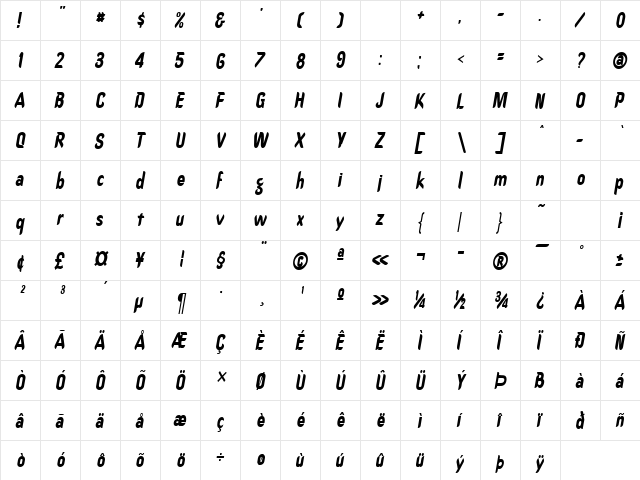
CallimarkerCondensed Italic Font Preview
Design Context for CallimarkerCondensed Typeface
CallimarkerCondensed takes a measured approach to typography — its balanced proportions and neutral character make it a reliable workhorse for both digital and print work. The slanted form adds forward momentum and visual energy. Its narrow stance lets it pack a punch even in space-constrained designs.
Pro Tip: Try CallimarkerCondensed for annotation and caption copy alongside an upright companion — the contrast in angle creates a dynamic but ordered typographic system.